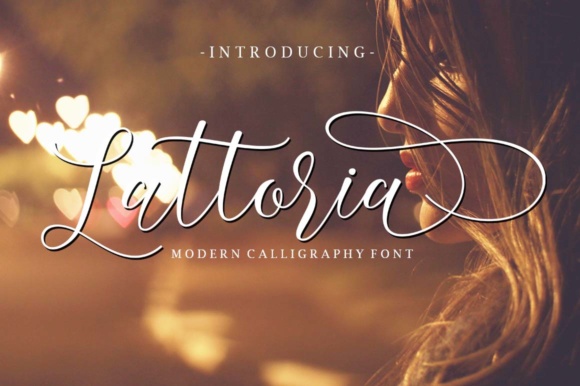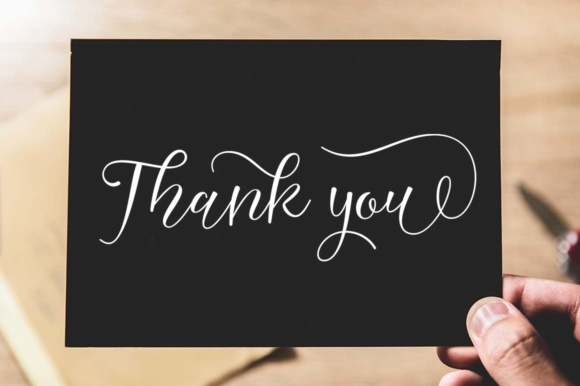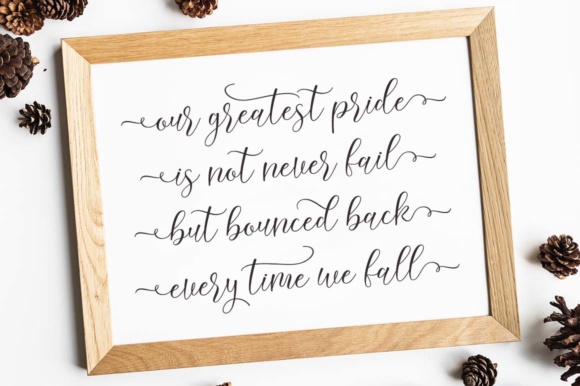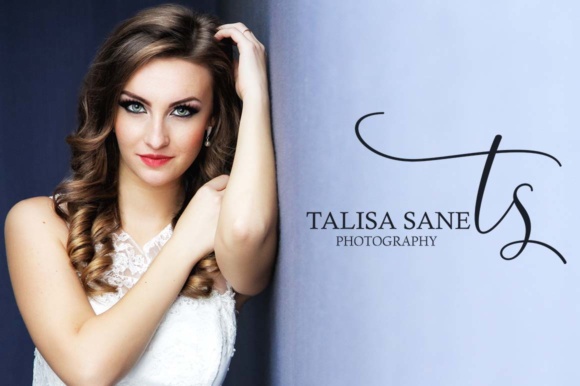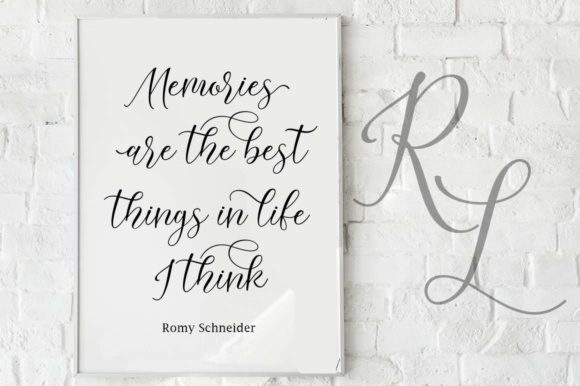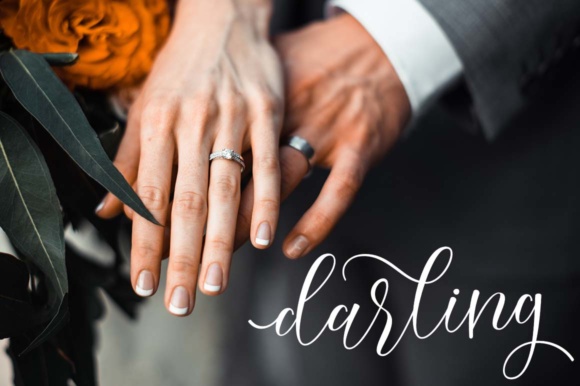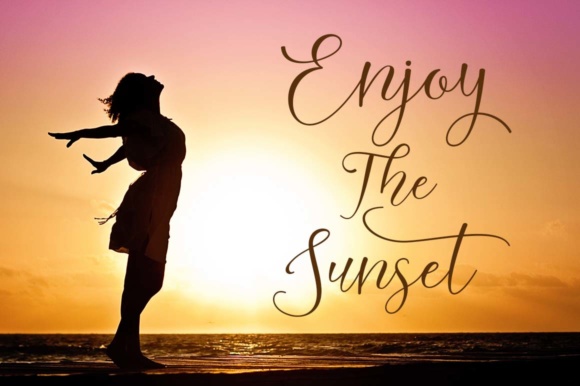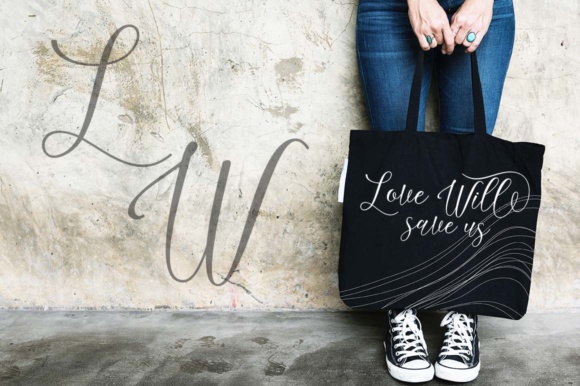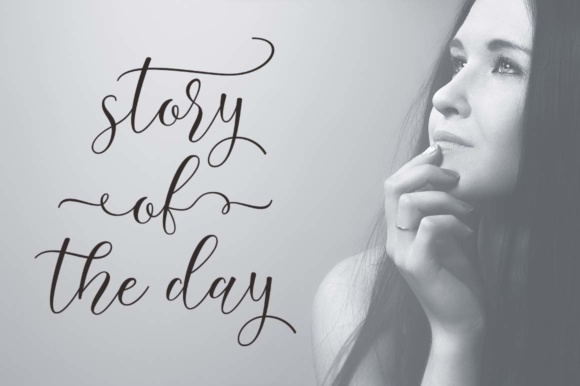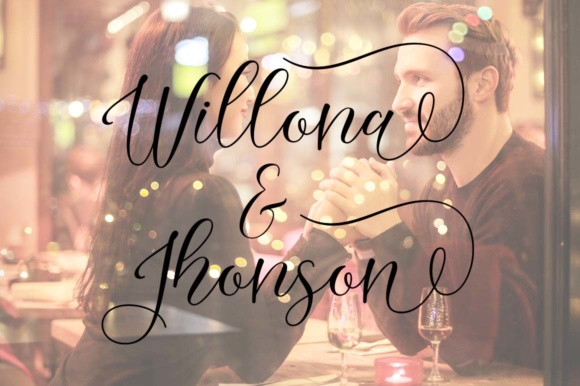
Lattoria Script Font
About Lattoria Script Font
The Lattoria is a fresh & modern script with a handmade calligraphy style. It has decorative characters and a dancing baseline! It’s perfect for adding an elegant feel to your designs.